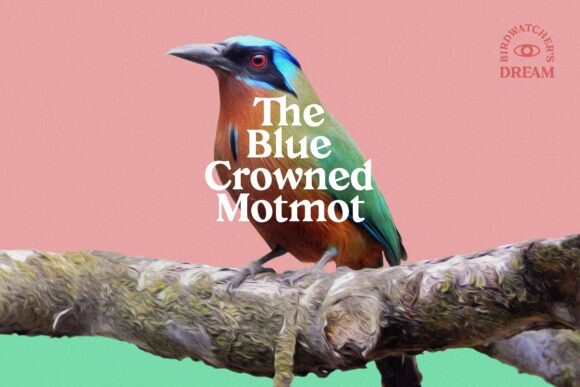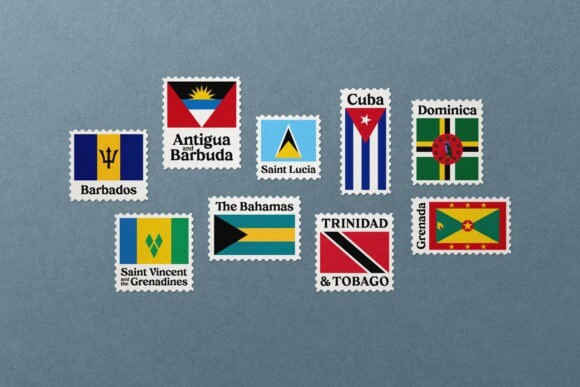
Creolia Font
Creolia is a bold rounded serif typeface in a modern and classy style. OpenType features include old-style figures and ligatures. Creolia is ideal for headlines, headers, logos, labels, packaging, postcards, presentations, magazines, invitations, etc.